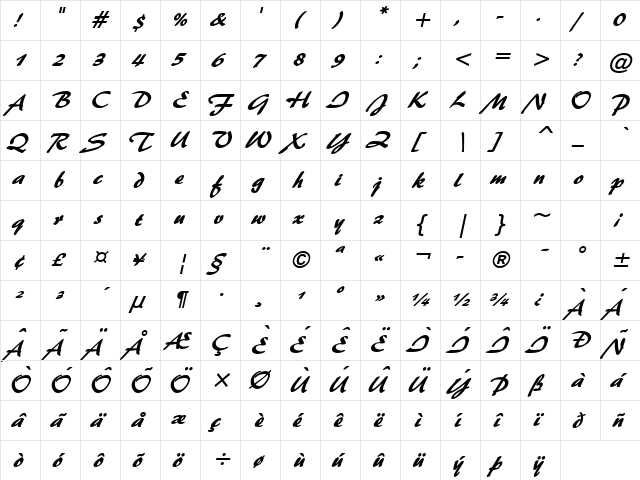
Brushstroke 35 BoldItalic
Design Context for Brushstroke 35 Typeface
Brushstroke 35 flows with the natural rhythm of handwritten lettering, making it ideal for designs that call for warmth and personal expression. The heavy weight commands attention and anchors typographic hierarchies.
Font Pairing: Combine Brushstroke 35 with a simple geometric sans for maximum contrast — the tension between flowing curves and clean structure is a classic typographic pairing.
Pro Tip: Use Brushstroke 35 for short runs of text — names, titles, or taglines. Extended body copy in script faces tires the eye quickly.